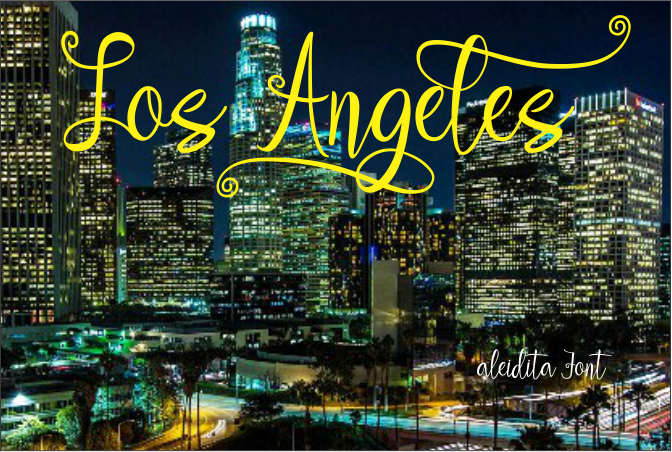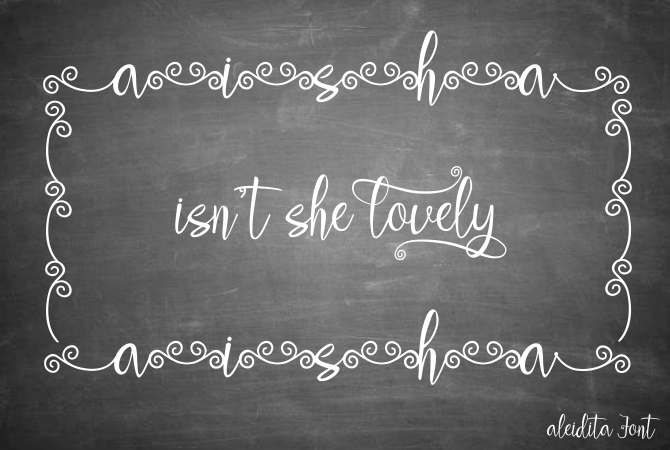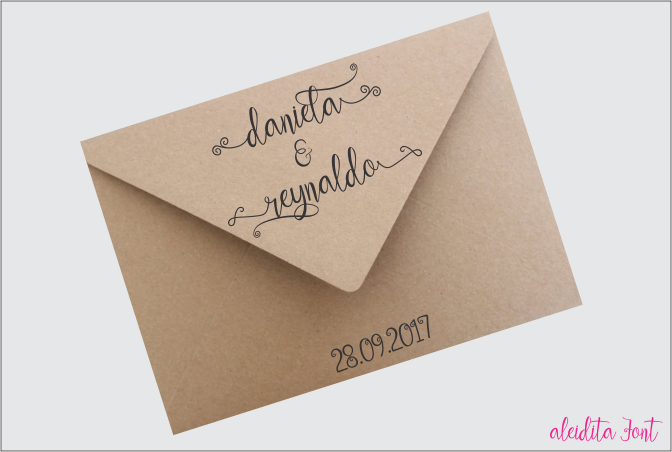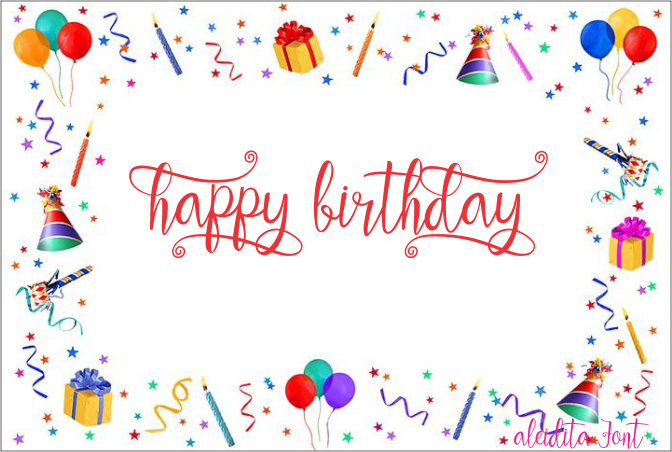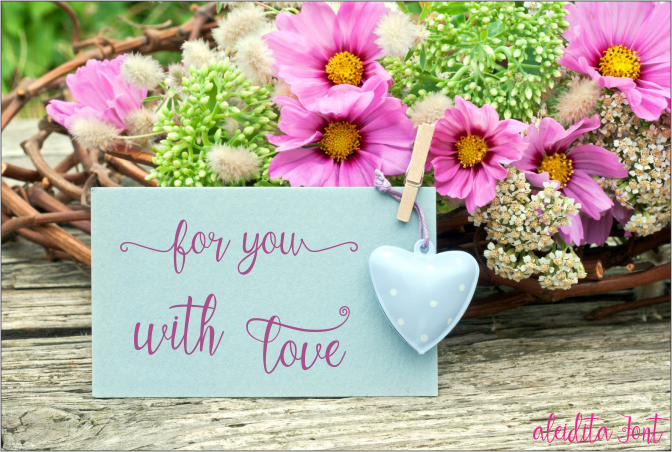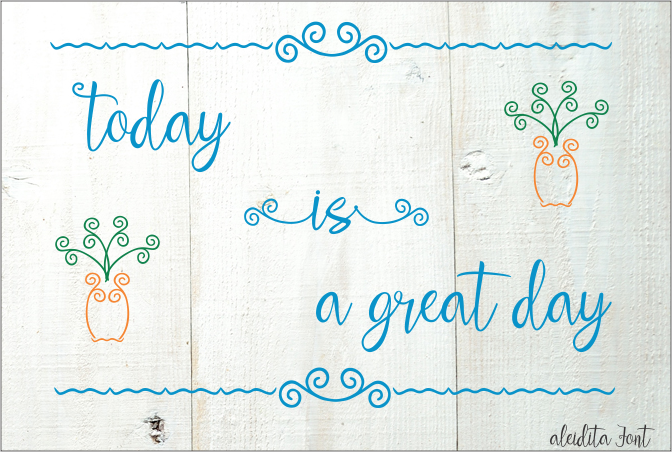
The Aleidita Font: A Modern Calligraphy-Style Script to Elevate Your Designs
I still remember the frustration of working on a wedding invitation project, searching for the perfect font to capture the elegance and romance of the occasion. As a designer, I’ve had my fair share of font hunting, but sometimes, it’s not just about finding a font – it’s about finding the right fit. That’s when I stumbled upon Aleidita, a modern calligraphy-style script that has become a staple in my design toolkit.
An Honest Review of Aleidita
• ✨ Elegant and sophisticated: Aleidita exudes luxury and refinement, making it perfect for high-end branding, weddings, and formal events.
• ✅ Highly legible: Despite its script nature, Aleidita is surprisingly easy to read, even at smaller font sizes.
• 💫 Versatile: With its modern calligraphy style, Aleidita can be used for a wide range of design projects, from digital to print.
While Aleidita is an exceptional font, there are a few things to keep in mind:
• ⚠️ Limited use in body text: Due to its script nature, Aleidita may not be the best choice for lengthy body text. It’s better suited for headings, titles, and short paragraphs.
• 🤔 Kerning: As with any script font, kerning can be a bit tricky. Make sure to adjust the tracking to ensure optimal readability.
A Practical Guide to Using Aleidita
The Story Behind Aleidita
Aleidita’s design story is one of passion and creativity. While the font’s actual origins might be unclear, it’s said to have been inspired by traditional calligraphy and the beauty of handwritten scripts. The designer aimed to create a modern, elegant font that would capture the essence of luxury and sophistication.
Font Name Aleidita Font
Author Jaime Rangel Castro
Q: Is Aleidita suitable for body text?
A: While Aleidita is legible, it’s not ideal for lengthy body text. It’s better suited for headings, titles, and short paragraphs.
Q: Does Aleidita support OpenType features?
A: Yes, Aleidita supports OpenType features, including stylistic alternates, glyphs, and ligatures. These features can enhance your design and add visual interest.